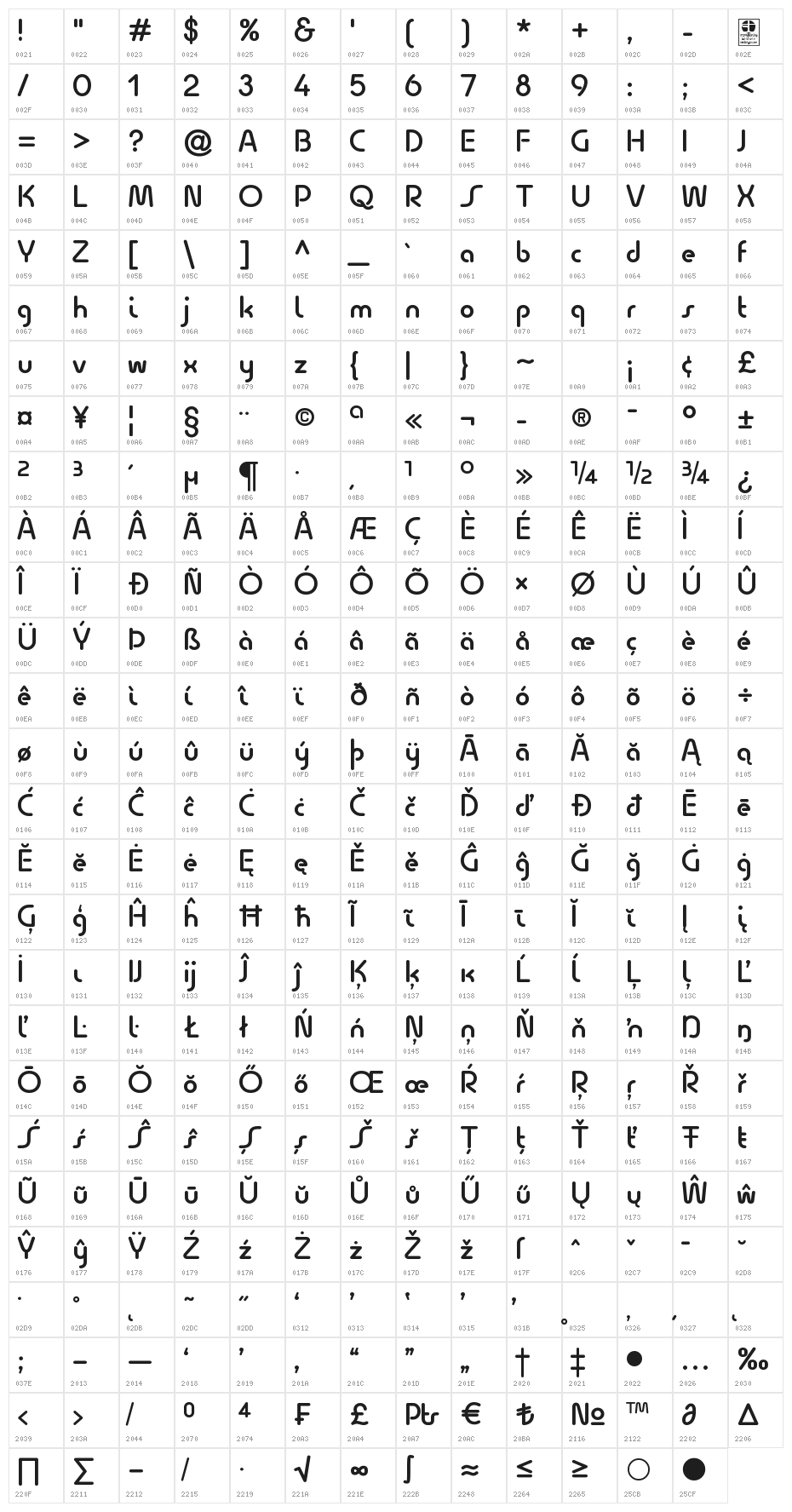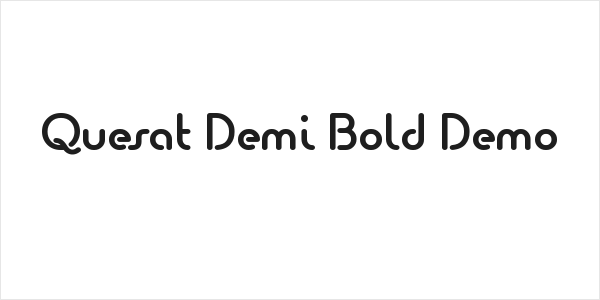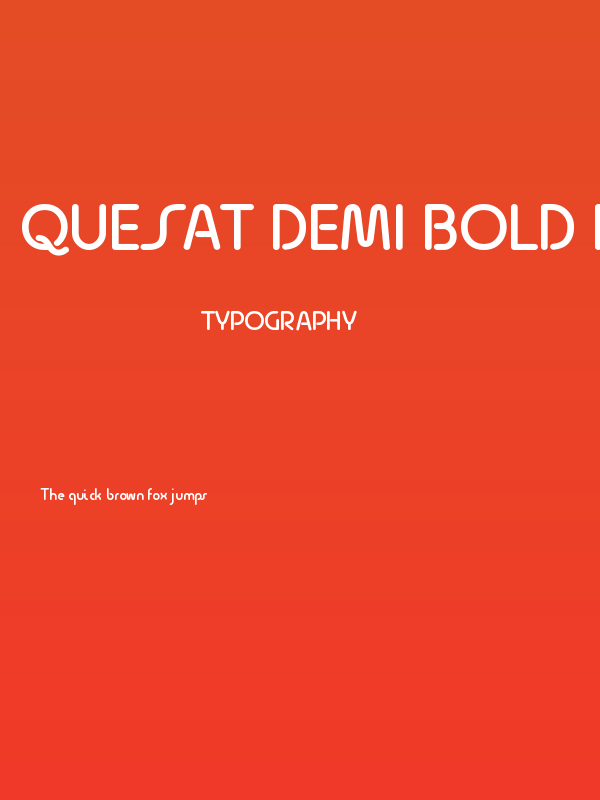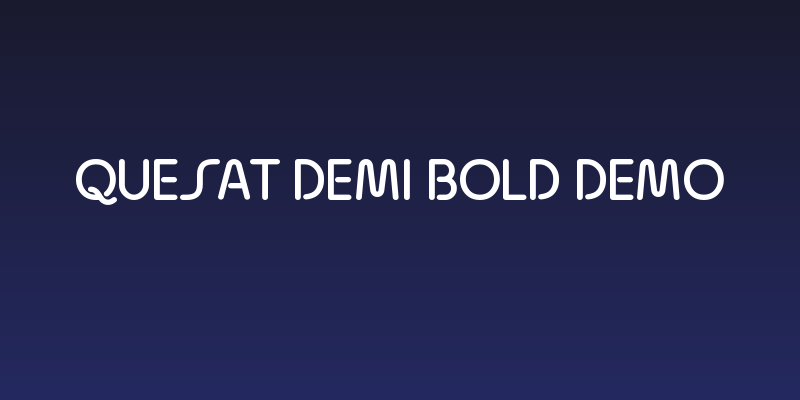
Quesat Demi Bold Demo Font
Quesat Demi Bold Demo Description
This font features a playful and rounded design, characterized by its smooth curves and uniform stroke width. The letters are bold and have a friendly, approachable appearance, making them suitable for a variety of informal and creative applications. The numerals and special characters maintain the same rounded aesthetic, ensuring consistency across all text elements. The overall style is modern and slightly whimsical, with a focus on readability and visual appeal.
| Proposed Projects | Ideal for children's books, playful branding, creative posters, and informal digital content. |